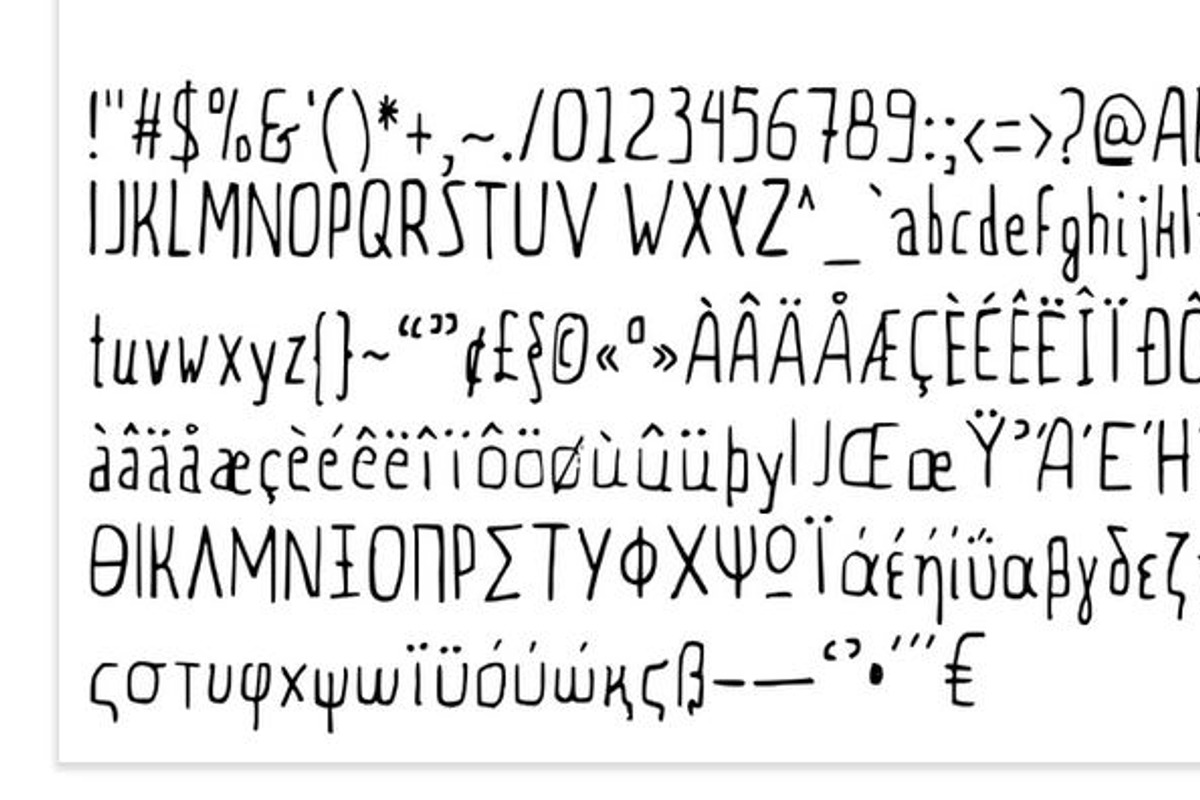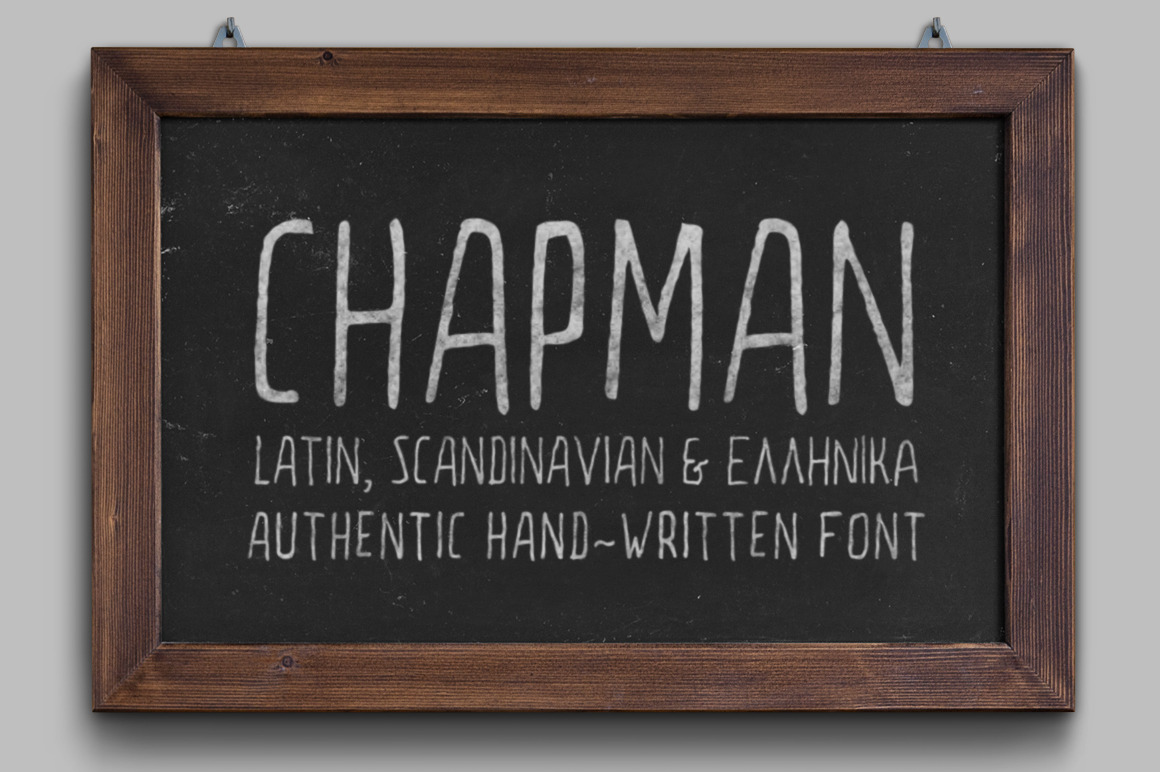
Chapman Handwritten Font
The font family is most suitable for headlines of all sizes. Olive font is applicable for any type of graphic design in print graphics and perfect for logos, badges, t-shirts and other items like posters. Also I recommend it for Wedding Invitations and other romantic events.
SUPPORT FOR (see preview images)
- GERMAN / SCANDINAVIAN / FRENCH CHARACTERS
- GREEK CHARACTERS
- PUNCTUATION MARKS